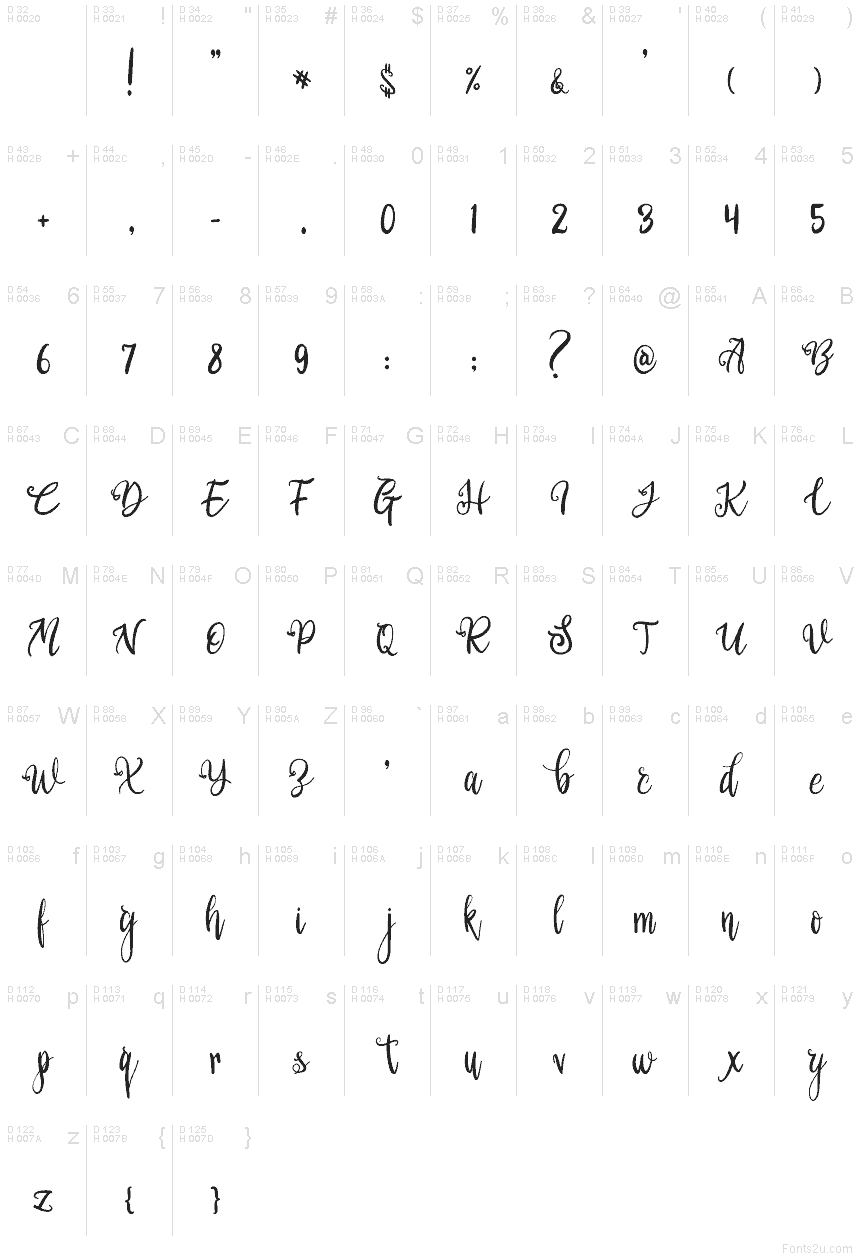
Saudade V2
Saudade V2 font is a handwritten typeface by Omaikraf Studio with elegancy and emotion captured in its flowing script style. Featuring expressive swirls, this free font embraces an organic feel with a prominent resonance that makes the design more inviting and charming.
Saudade V2 is perfect for romantic-themed projects like wedding cards, invitations, gift packages, thank you cards, branding designs for herbal or organic products, feminine product packaging designs and labels. And since it reflects emotions so gracefully well, consider incorporating this font into book covers and album covers in related themes. Lastly this open-source resource could also work wonders on social media greeting cards as well as magazine covers.